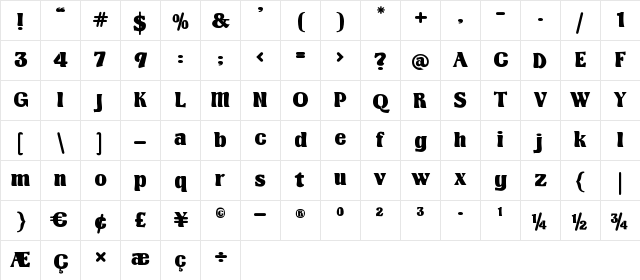
Kingthings Organica Extra Bold
Style: Extra Bold
Designer: Kevin King, Exeter 2002
Design Context for Kingthings Organica
Kingthings Organica is a composed and adaptable typeface that performs quietly and consistently across a wide range of design contexts. Its bold stroke weight gives it real presence on the page.